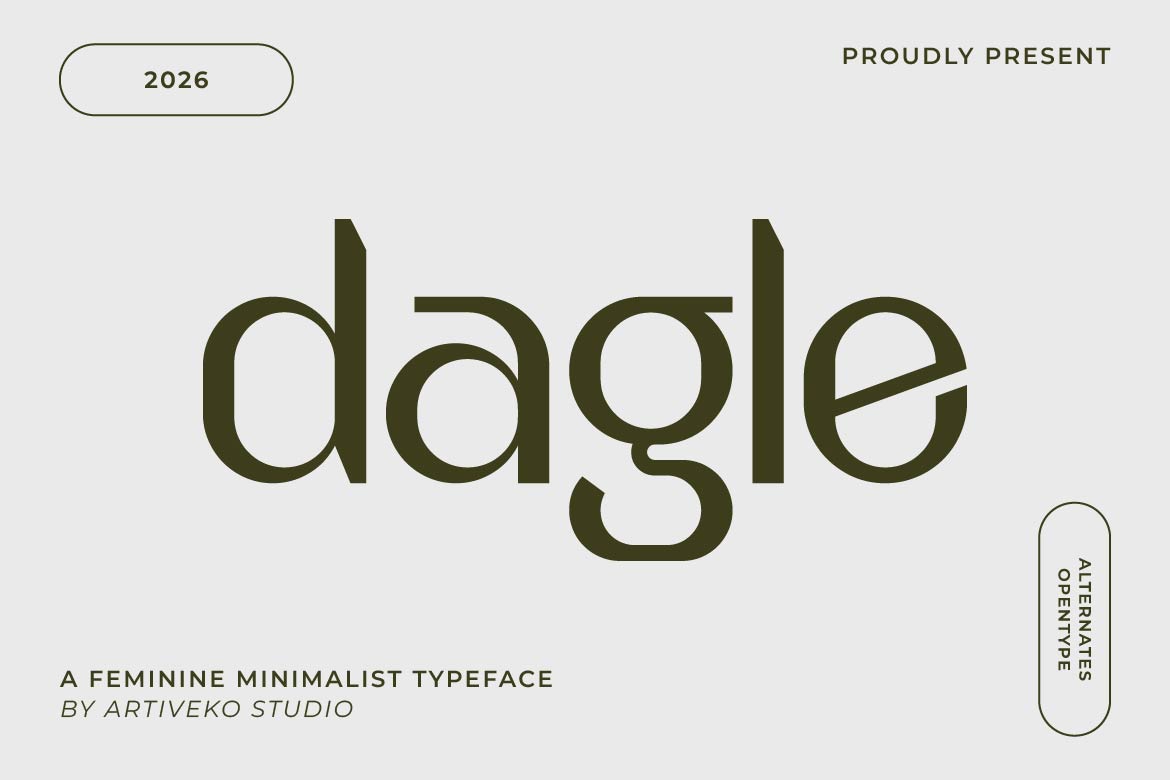
- Dagle – Minimalist Feminine Font for Beauty & Boutique Branding
Dagle is a minimalist feminine sans serif typeface designed to express elegance through simplicity. Featuring refined letterforms, clean lines, and harmonious proportions, Dagle delivers a soft yet confident personality that perfectly complements modern feminine branding.
Created for beauty brands, fashion labels, skincare packaging, boutique shops, jewelry collections, wellness businesses, and luxury lifestyle products, Dagle brings a premium aesthetic without unnecessary ornamentation. Its minimalist design ensures exceptional readability while adding a sophisticated touch to logos, packaging, editorial layouts, social media, and digital branding.
Whether you’re building a cosmetic brand, designing elegant packaging, or creating a timeless visual identity, Dagle offers the perfect balance of femininity, clarity, and modern style.
Dagle isn’t just a font—it’s a minimalist expression of elegance designed for brands with refined taste.